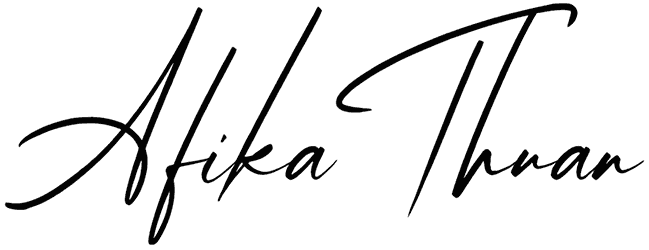
AfikaThuan Font
AfikaThuan’s human touch in any project can be a symbol of trust and authenticity. So why not use this little trick to give credibility to your brand?
This fashion font is a way to make your work more attractive because of its illegibility; it keeps the reader focused for a while. So, you can make the most of this script font for any content in the form of a poster, a friendly letter, or a wedding card that needs more attention.